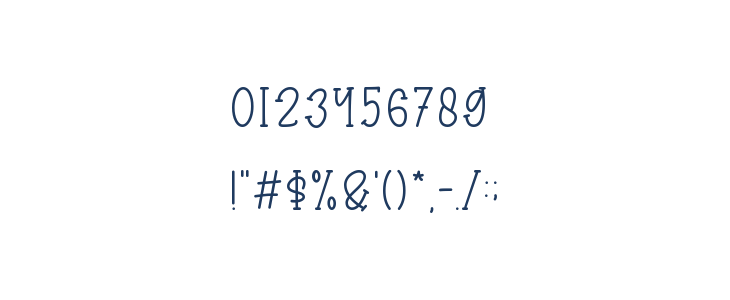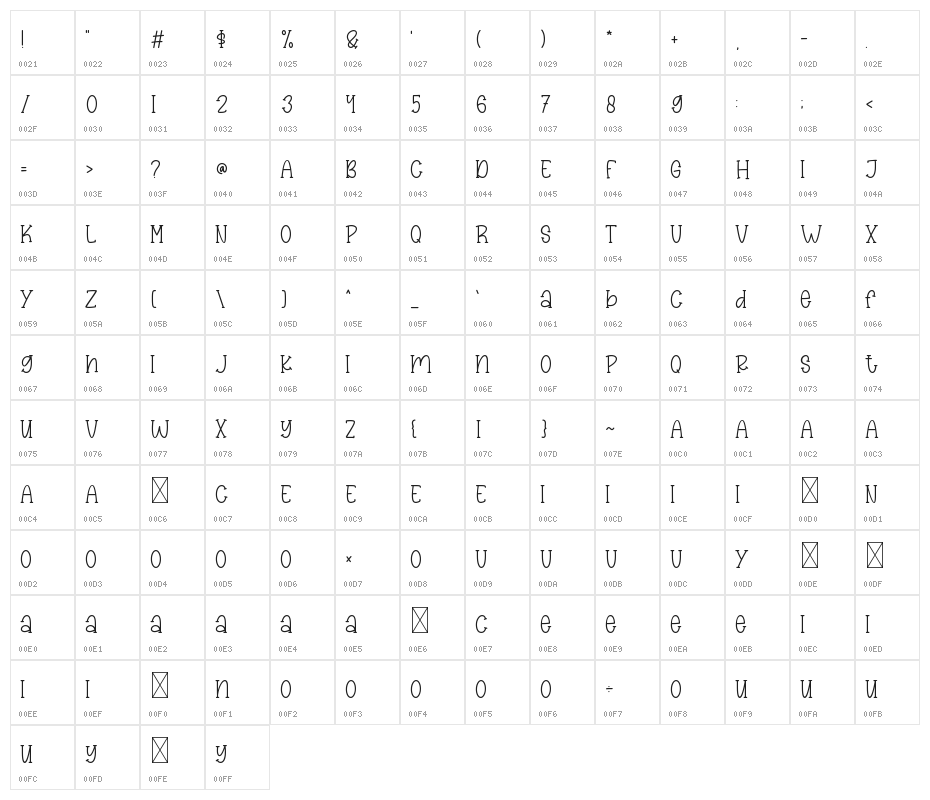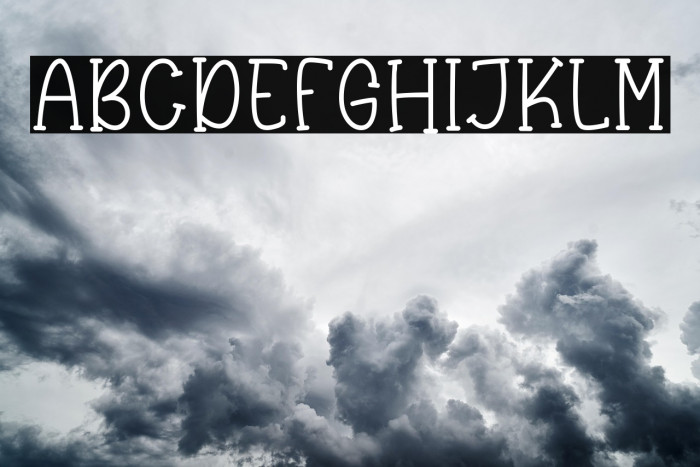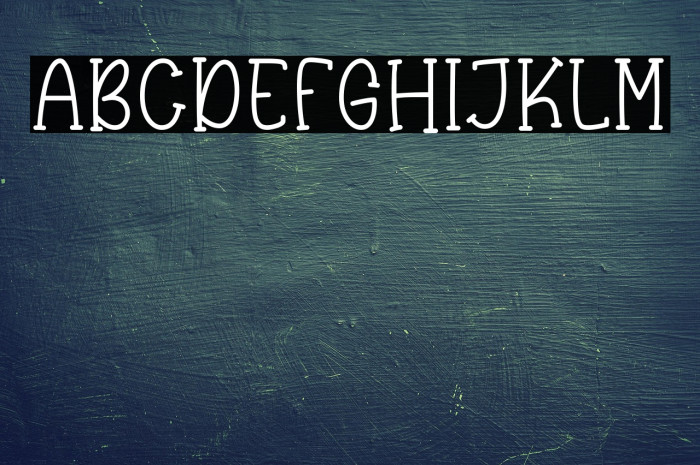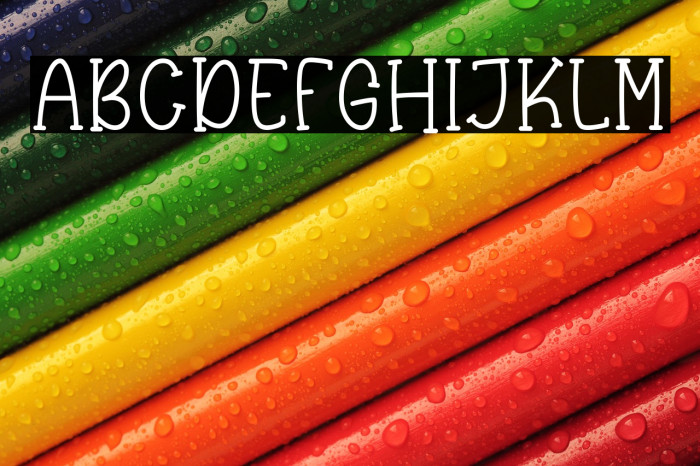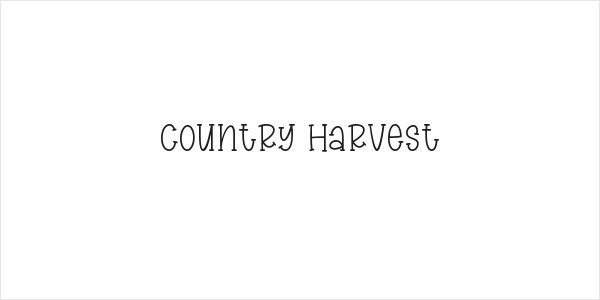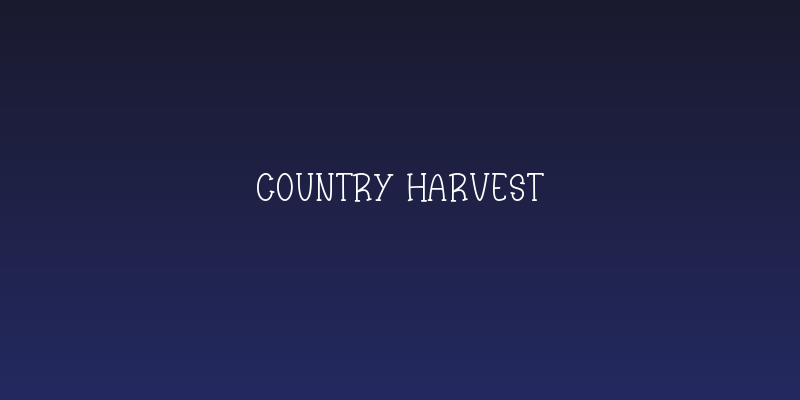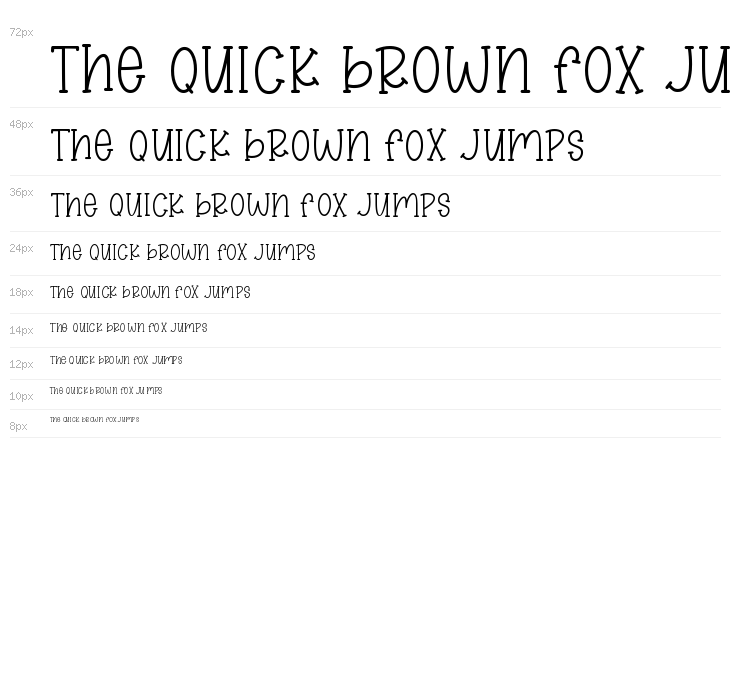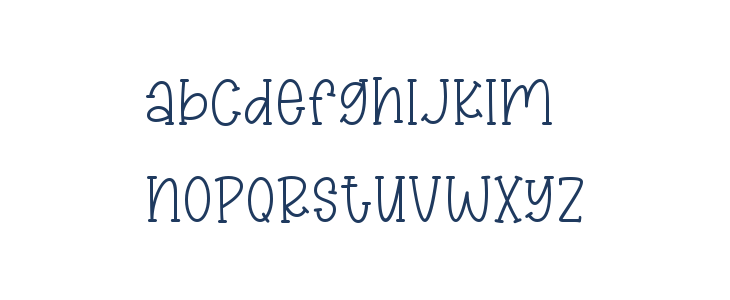
Country Harvest Font
Country Harvest Description
This font features a whimsical and playful design, characterized by its curly and slightly exaggerated serifs. The letters have a hand-drawn quality, giving them a unique and artistic flair. The uppercase and lowercase letters maintain a consistent style, with rounded edges and a slight tilt that adds to the font's charm. Numbers and special characters follow the same playful theme, making the font versatile for various creative applications. Its distinct style makes it suitable for projects that require a touch of personality and creativity.
| Overall Style | Playful, Artistic |
| Proposed Projects | Ideal for children's books, greeting cards, playful branding, and creative posters. |